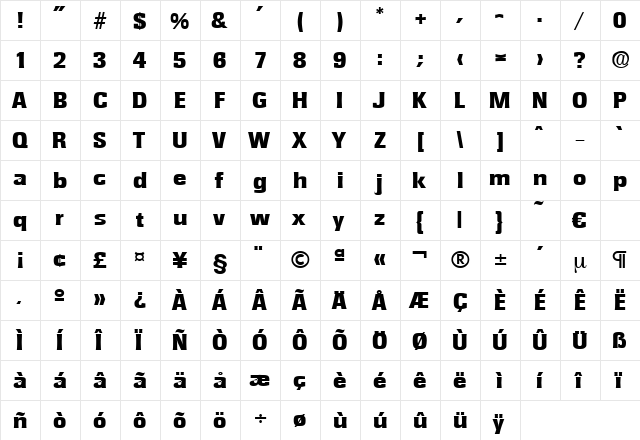
Rochester-ExtraBold Regular
Design Context for Rochester-ExtraBold Typeface
Rochester-ExtraBold offers clean, dependable letterforms without strong stylistic allegiance, making it a practical choice for designers who need flexibility. The heavy weight commands attention and anchors typographic hierarchies.